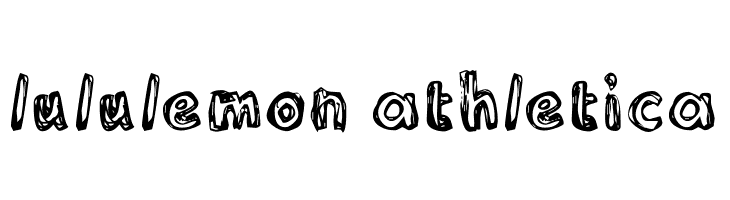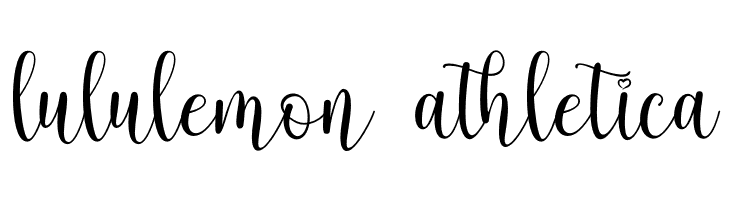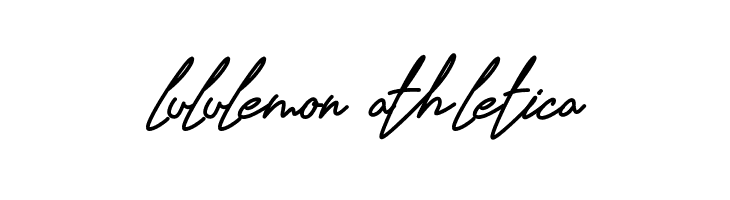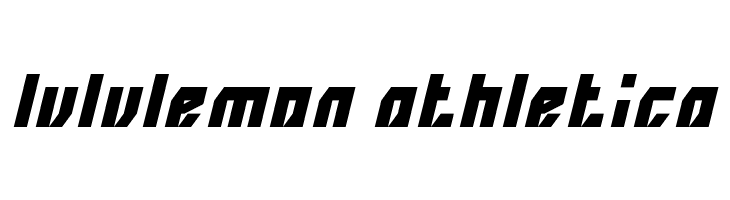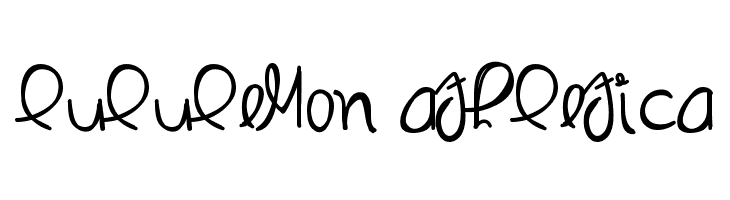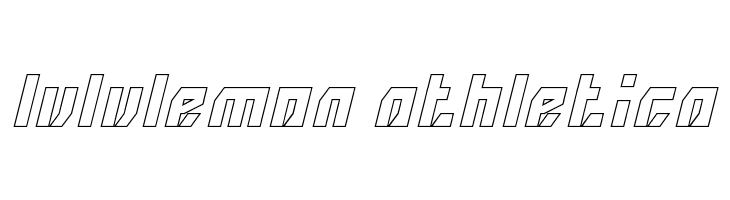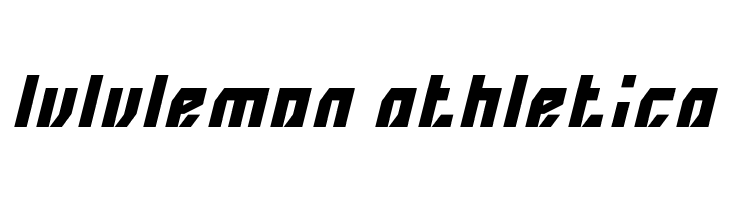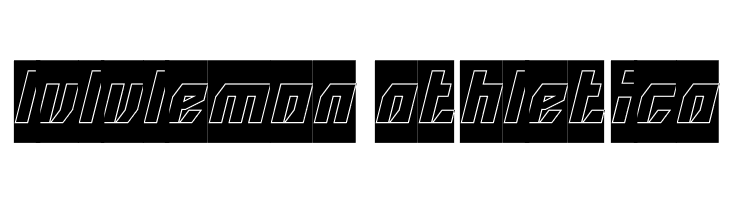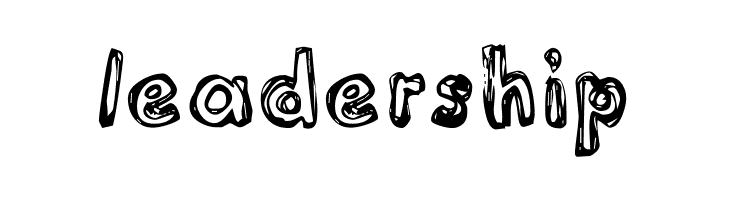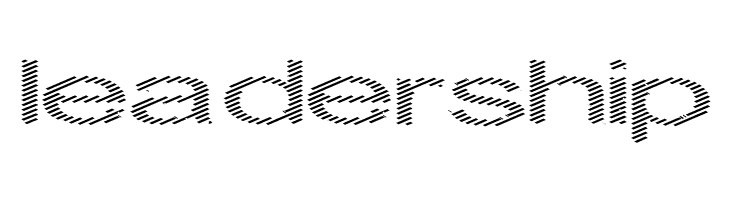
A classic serif font with elegant, sharp serifs and medium contrast.
A bold, high-contrast serif font with angular serifs and a modern flair.
A bold serif font with strong strokes and sharp serifs, offering a classic yet modern look.
A bold, high-contrast serif font with sharp serifs and a modern classic style.
A bold, jagged font with an aggressive, dynamic style.
Decorative, pictographic font with ancient, symbolic motifs.
A pictographic, decorative font mimicking ancient stone carvings.
Illustrative dingbat font with gardening and outdoor motifs.
A playful, hand-drawn font with rounded, smooth curves and a friendly appearance.
A playful, handwritten-style italic font with smooth, rounded strokes.
A bold, playful font with rounded strokes and a friendly appearance.
A lively and elegant script font with flowing, interconnected letterforms and ornate flourishes.
A flowing, cursive script font with a handwritten, elegant style.
A modern sans-serif font with rounded edges and uniform strokes, offering excellent readability.
A bold, rounded font with smooth curves and a modern, approachable style.
A bold, italic font with smooth curves and a modern, sleek appearance.
A modern, italic sans-serif font with smooth curves and balanced spacing.
A bold, distressed font with an ink-splattered, grunge aesthetic.
A bold, quirky font with jagged, irregular edges and a playful, hand-drawn style.
A bold, gothic-inspired font with sharp, abstract shapes.
A bold, glitch-inspired font with a digital, futuristic style.
A bold, glitch-style font with an italic slant, perfect for tech-themed designs.
A decorative, pixelated font with a digital, futuristic aesthetic.
A bold, italicized font with a jagged, digital glitch effect.
A dramatic, angular font with elongated strokes and sharp serifs.
A bold, 3D font with sharp, angular lines and a futuristic style.
A bold, 3D italic font with a futuristic and dynamic style.
A bold, condensed font with sharp angles and a futuristic style.